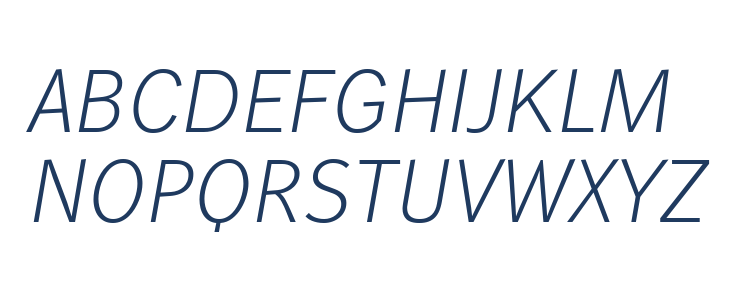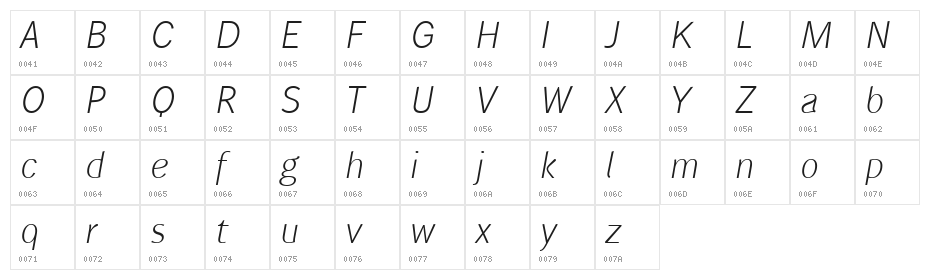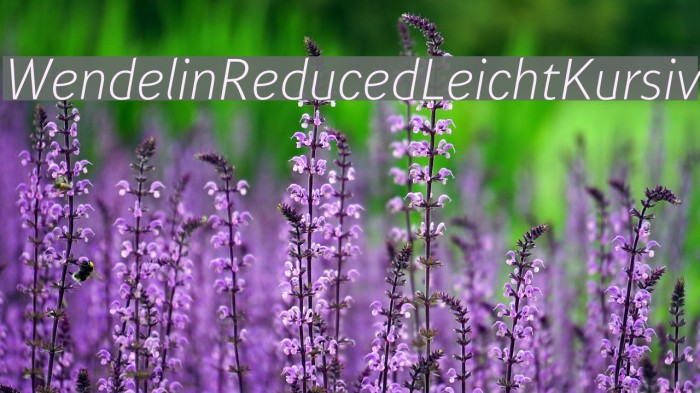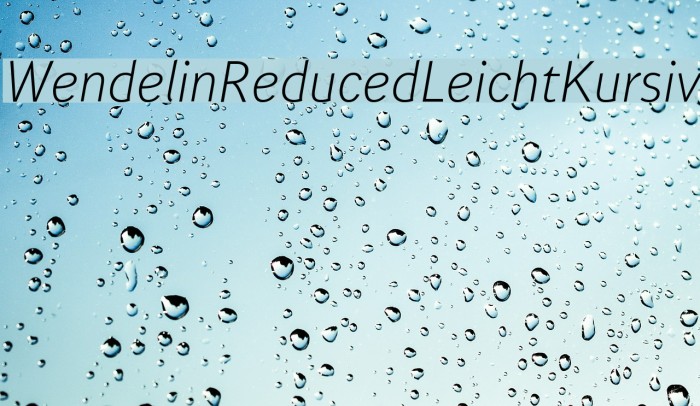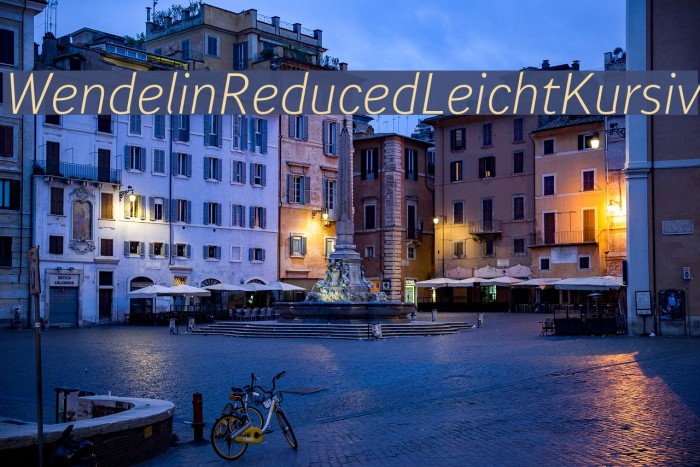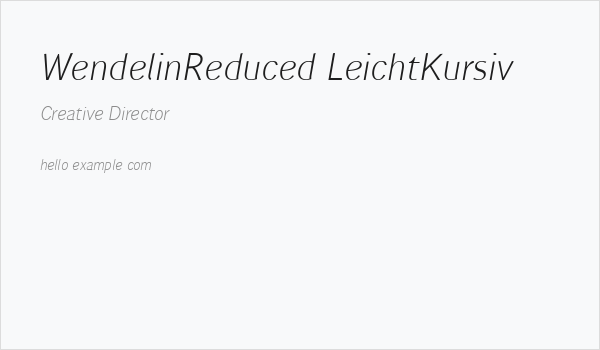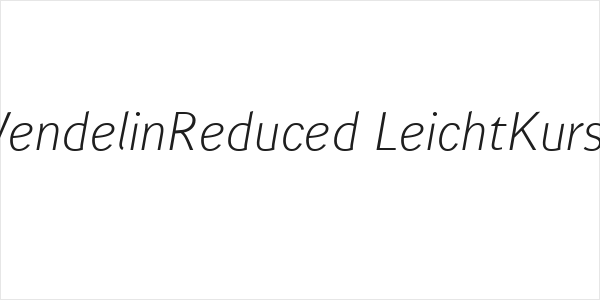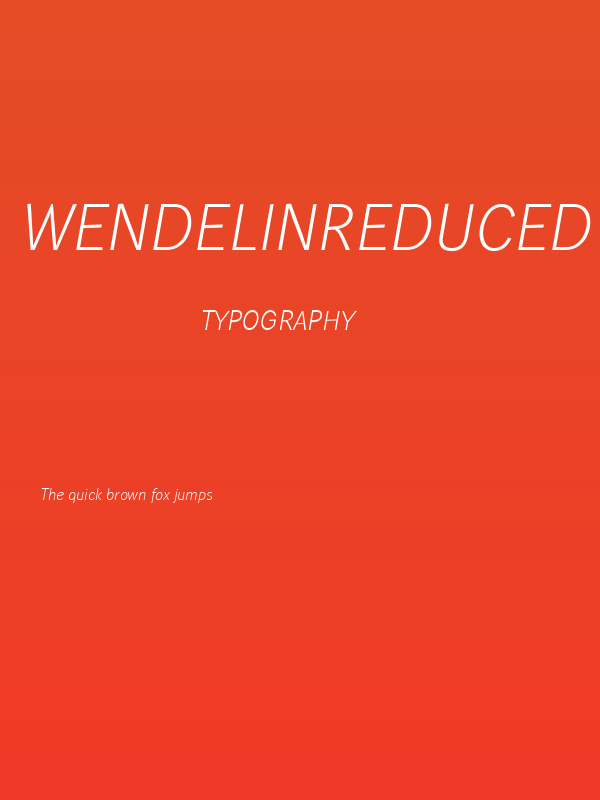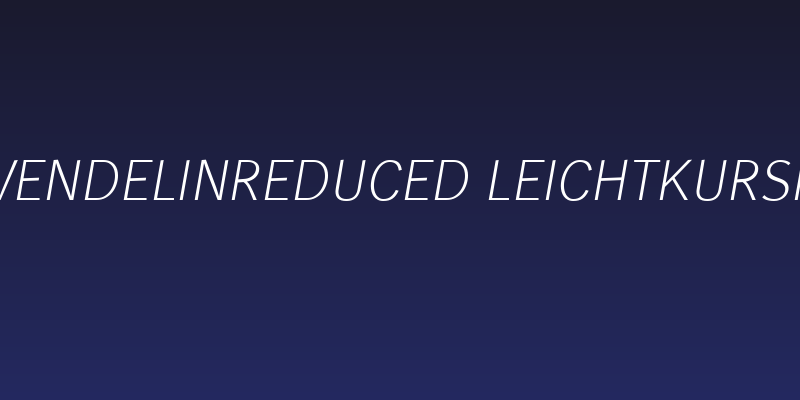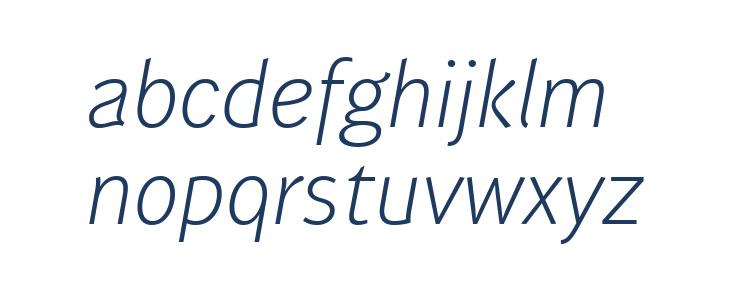
WendelinReduced-LeichtKursiv Font
WendelinReduced-LeichtKursiv Description
This font exhibits a sleek and modern design with a slight italic slant, providing a sense of motion and elegance. The characters are uniformly thin, contributing to a light and airy appearance. The uppercase letters maintain a consistent height, while the lowercase letters have a subtle variation in height, adding to the font's dynamic nature. The spacing between characters is balanced, ensuring readability while maintaining a stylish look. The font's clean lines and minimalistic approach make it versatile for various design applications.